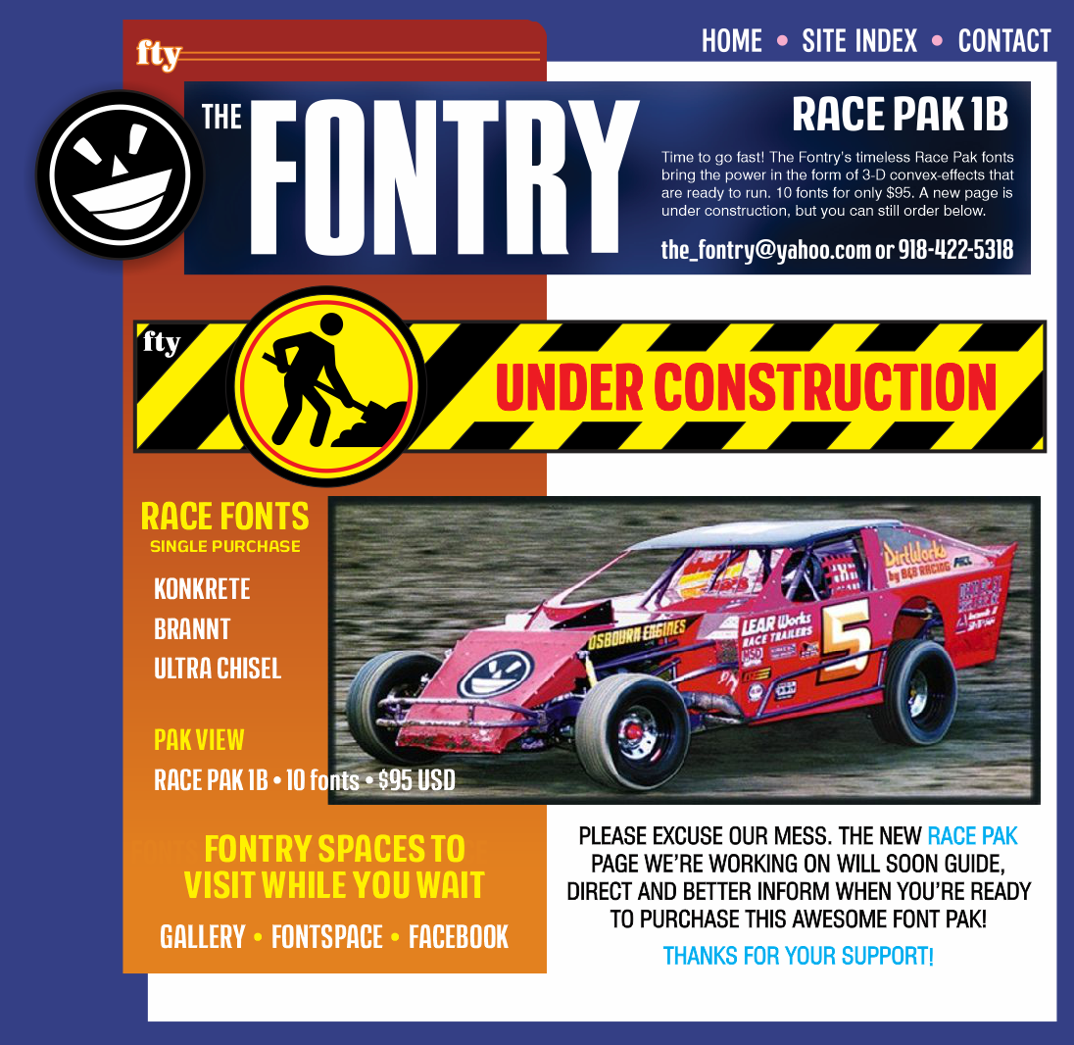
Race Pak #1B is born from the dust and grit of the "roundy-round" tracks. From typefaces originally designed to grace the doors of dirt-track cars comes a collection of 10 fonts that will get the attention of anyone looking for a way to jazz up a sign job. Now available on CD, these heavy-duty fonts are chiseled to create the 3-dimensional convex effect craved by the race-car crowd. And not only are these all-original fonts complete with a set of fully chiseled numbers, letters and a slew of punctuation symbols and alternate characters, but they also come in a normal, non-chiseled version to compliment your work without overkilling the special effects. An added bonus is the Race Checkers font. Typing the number keys in this font will give you a line of checkers the same number of checks high as the key you're typing. Hold down the shift key and you get chiseled checkers! But that's not all, (this is better than an infommercial!) we stayed up all night for six months and put the CHECKERED effect into every one of these fonts! And that still isn't all! If you're software supports it, you can type in background outlines separate from foreground chisels for field-expedient layouts. No more converting everything into a graphic and dragging chiseled pieces all over the place. And the best thing? The price has stayed the same! $99 for 10 fonts, chiseled AND checkered. That's cheaper than paying me to stay up all night for just ONE night! As an added incentive, Race Pak #1A also includes the Excursions fonts of Signfaces Narrow Block Pak #1 and the Wild Bunch Pak #3 FREE font pak. Get all three font paks on CD for $99. Order now! |